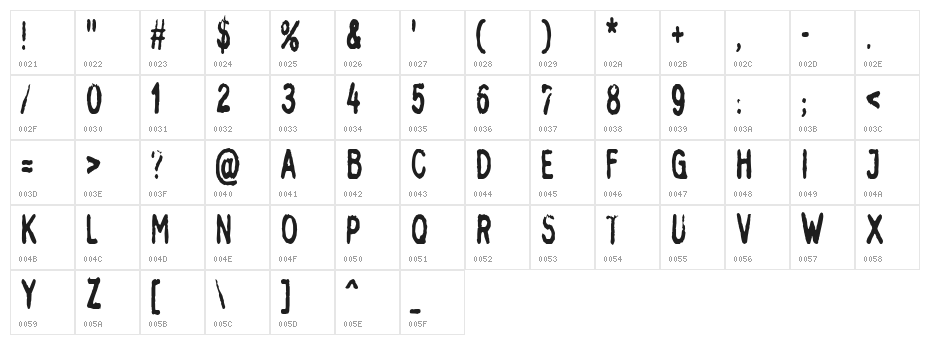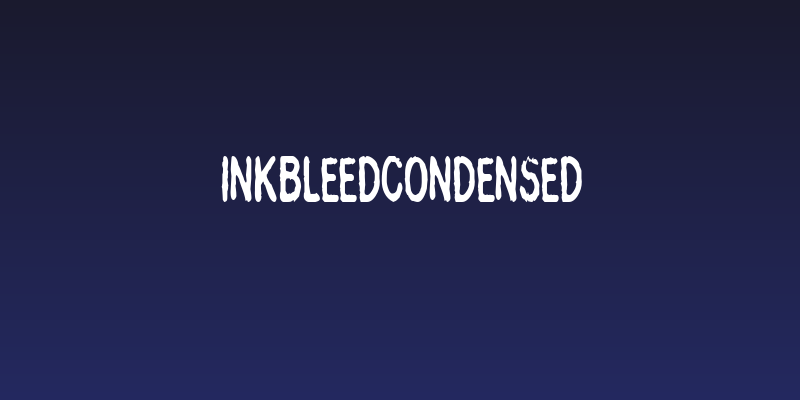
InkbleedCondensed Font
InkbleedCondensed Description
This font features a unique, distressed appearance, reminiscent of ink bleeding through paper. The characters are bold and have an uneven texture, giving them a raw and organic feel. The uppercase and lowercase letters maintain a consistent style, with jagged edges and irregular strokes that add to the overall distressed look. Numbers and special characters follow the same design, ensuring a cohesive appearance across all glyphs. This font is perfect for projects that require a grunge or handmade aesthetic, offering a striking visual impact.
| Overall Style | Grunge, Handmade |
| Use Case | Headlines, Posters, Branding |
| Proposed Projects | Ideal for album covers, posters, branding for edgy or alternative products, and any design needing a raw, handmade look. |